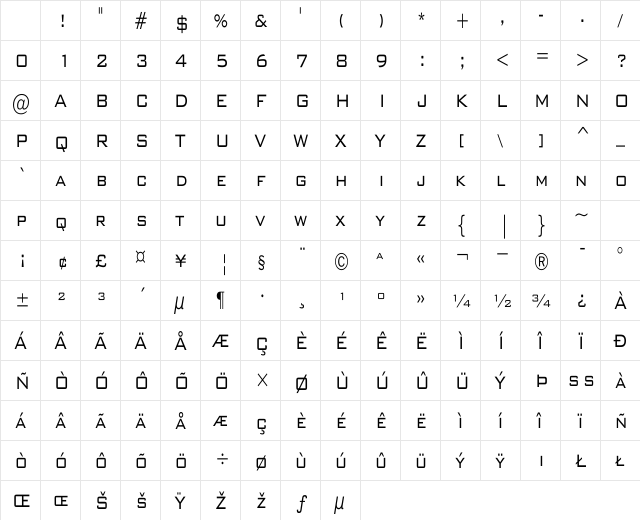
BankGothicCondensed takes a clean, functional approach - its unadorned letterforms prioritise legibility and work reliably across screen and print environments. Its narrow stance lets it pack a punch even in space-constrained designs.
Font Pairing: Works well alongside a characterful serif or display font that can carry the expressive load while BankGothicCondensed handles the functional copy.
Pro Tip: Use BankGothicCondensed tightly set in headlines and banners - its condensed proportions make it ideal for maximum impact in minimum horizontal space.